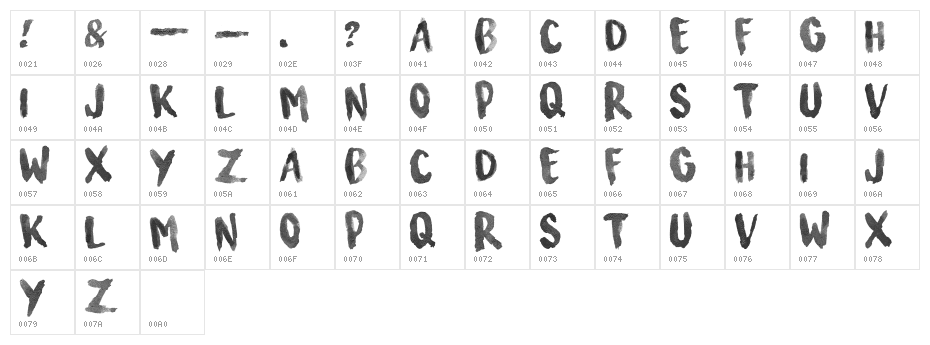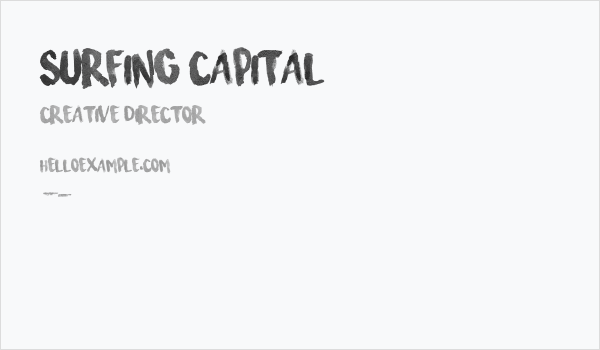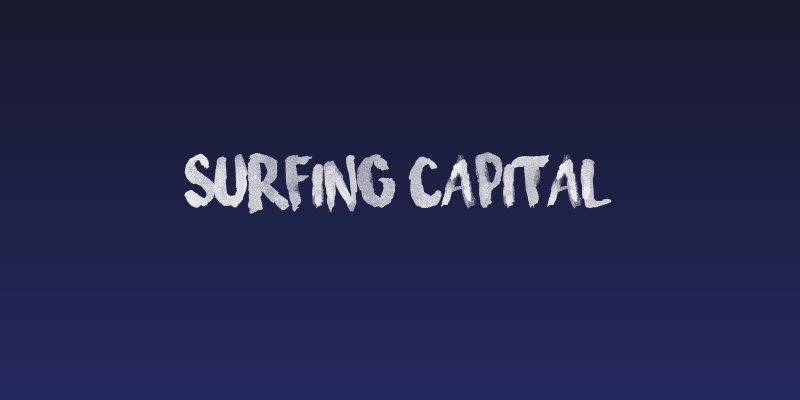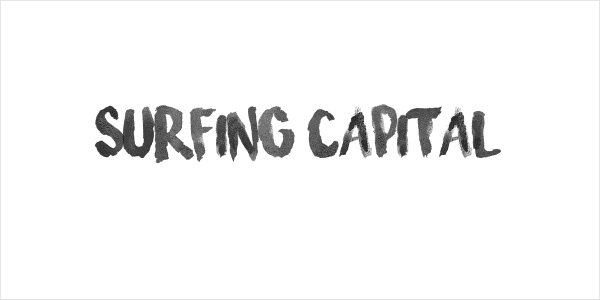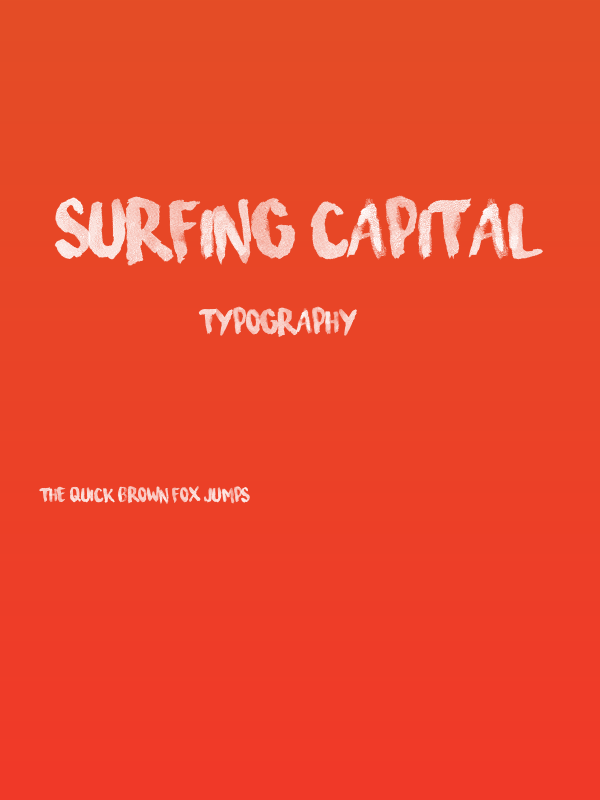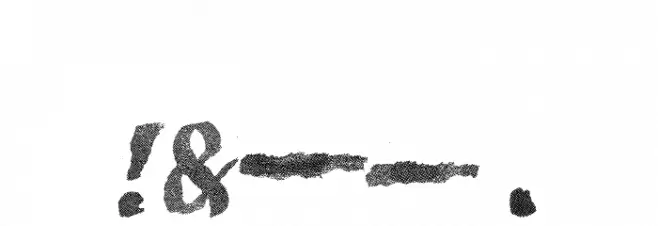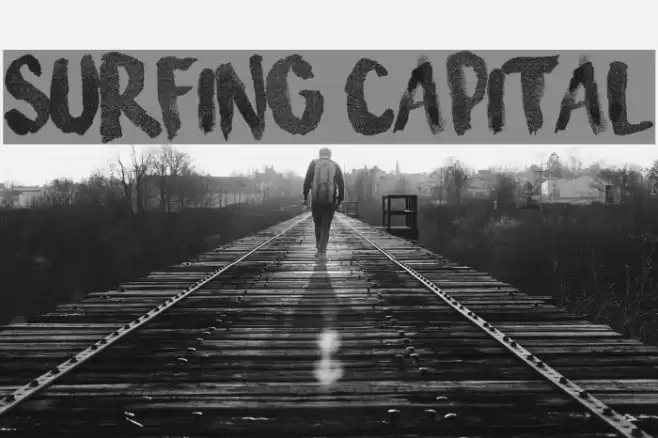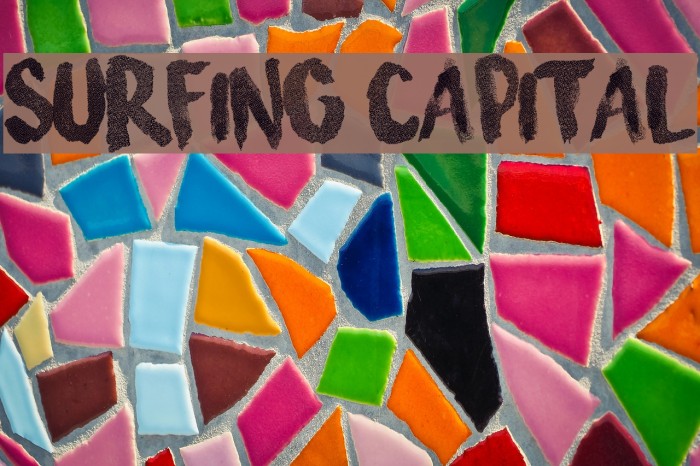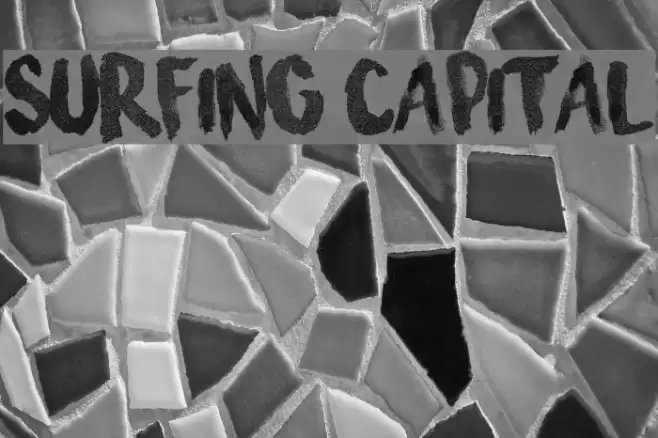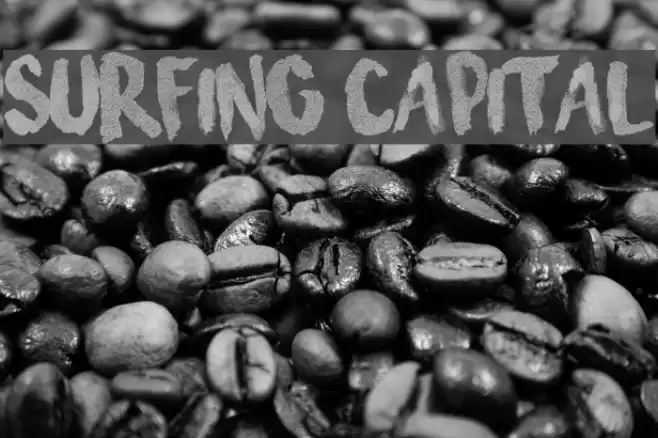
Surfing Capital Font
Surfing Capital Description
This font features a bold, brush-like texture that exudes a sense of energy and movement. The letters are crafted with a rough, hand-painted style, giving each character a unique and dynamic appearance. The strokes are uneven, with varying thickness that adds to the organic feel of the font. The overall design is reminiscent of surf culture, capturing the essence of waves and the carefree spirit of the ocean. The uppercase letters are prominent and attention-grabbing, making them ideal for impactful headlines or titles. The special characters maintain the same artistic flair, ensuring consistency across all elements.